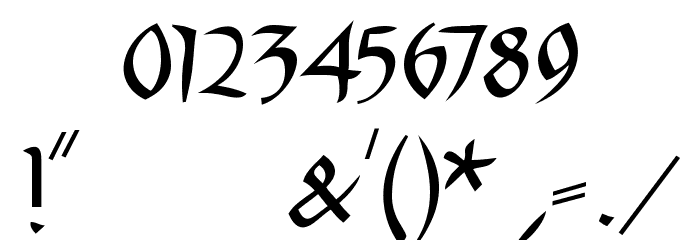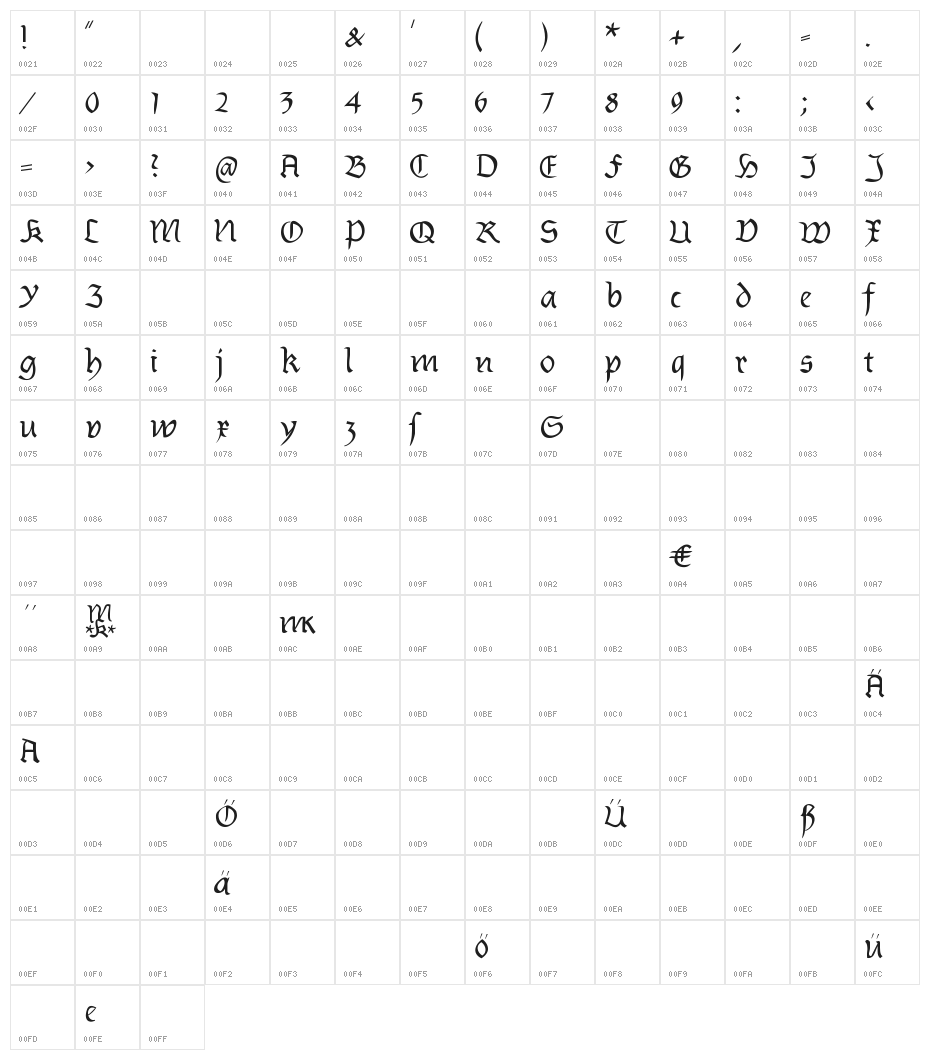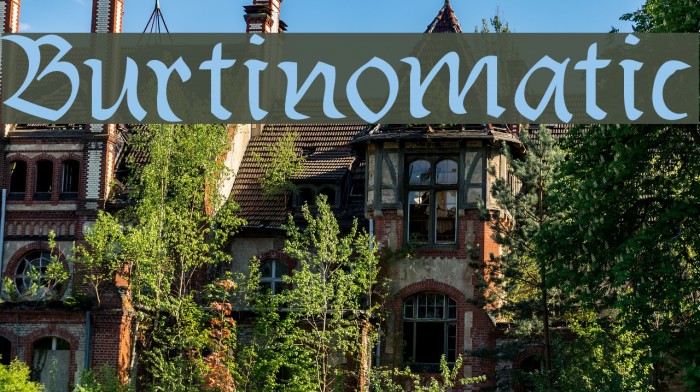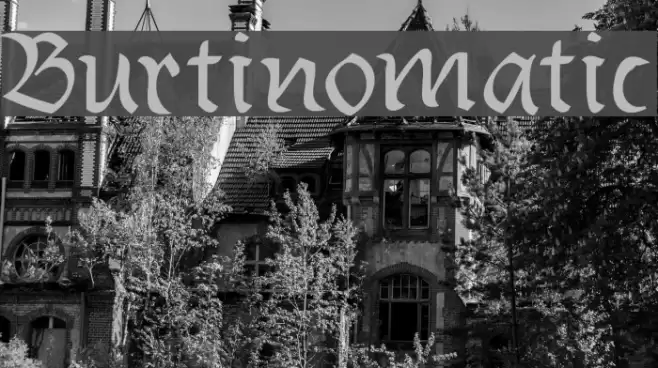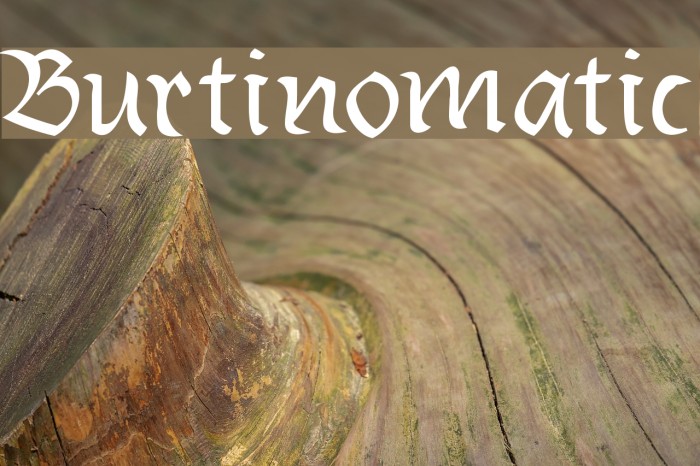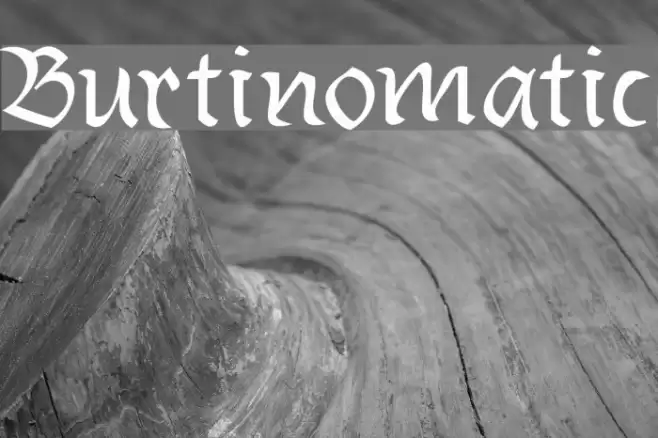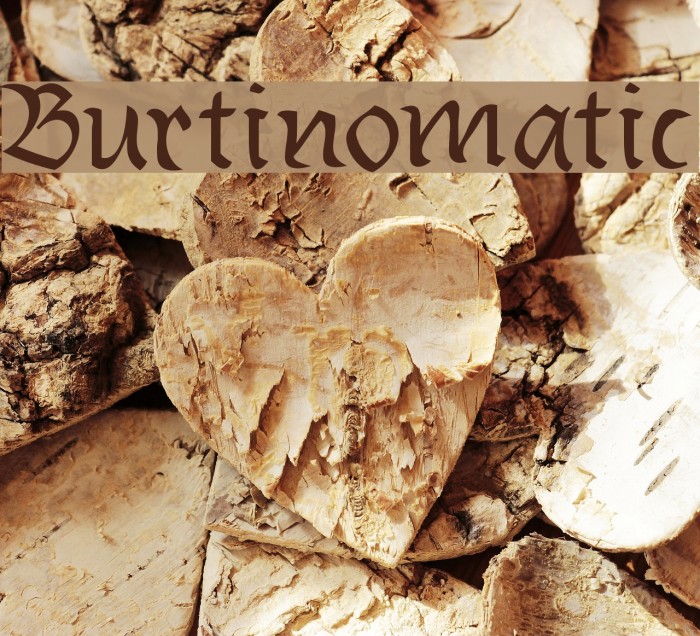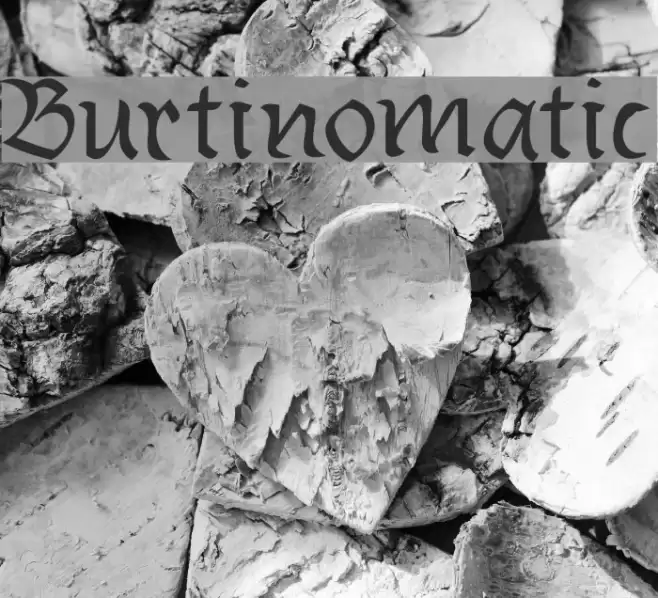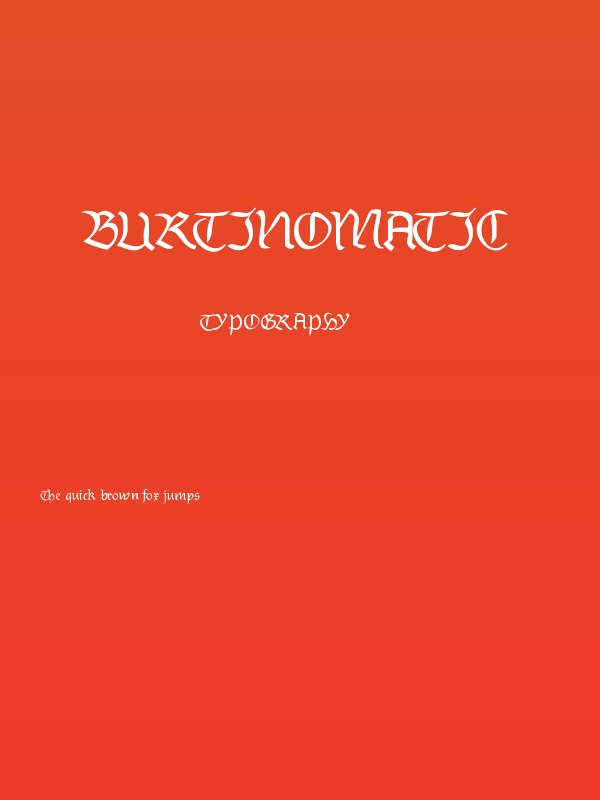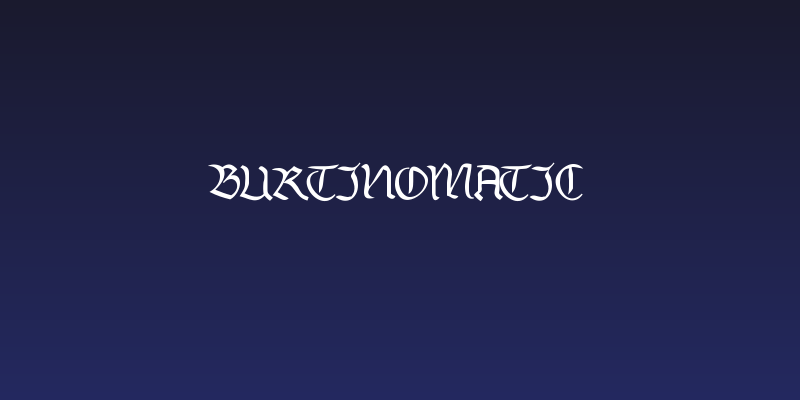
Burtinomatic Font
Burtinomatic Description
This font exhibits a classic blackletter style, characterized by its intricate and angular letterforms. The uppercase letters feature sharp, pointed serifs and elaborate flourishes, while the lowercase letters maintain a consistent medieval aesthetic. The numerals are similarly styled, with a distinct old-world charm. The special characters complement the overall design, adding to the font's historical and decorative appeal. This typeface is reminiscent of traditional calligraphy, often seen in historical documents and heraldic designs.
Overall StyleVintage
Use CaseLogos, Headlines, Decorative text
Proposed ProjectsIdeal for projects requiring a historical or medieval theme, such as book covers, posters, or event invitations.